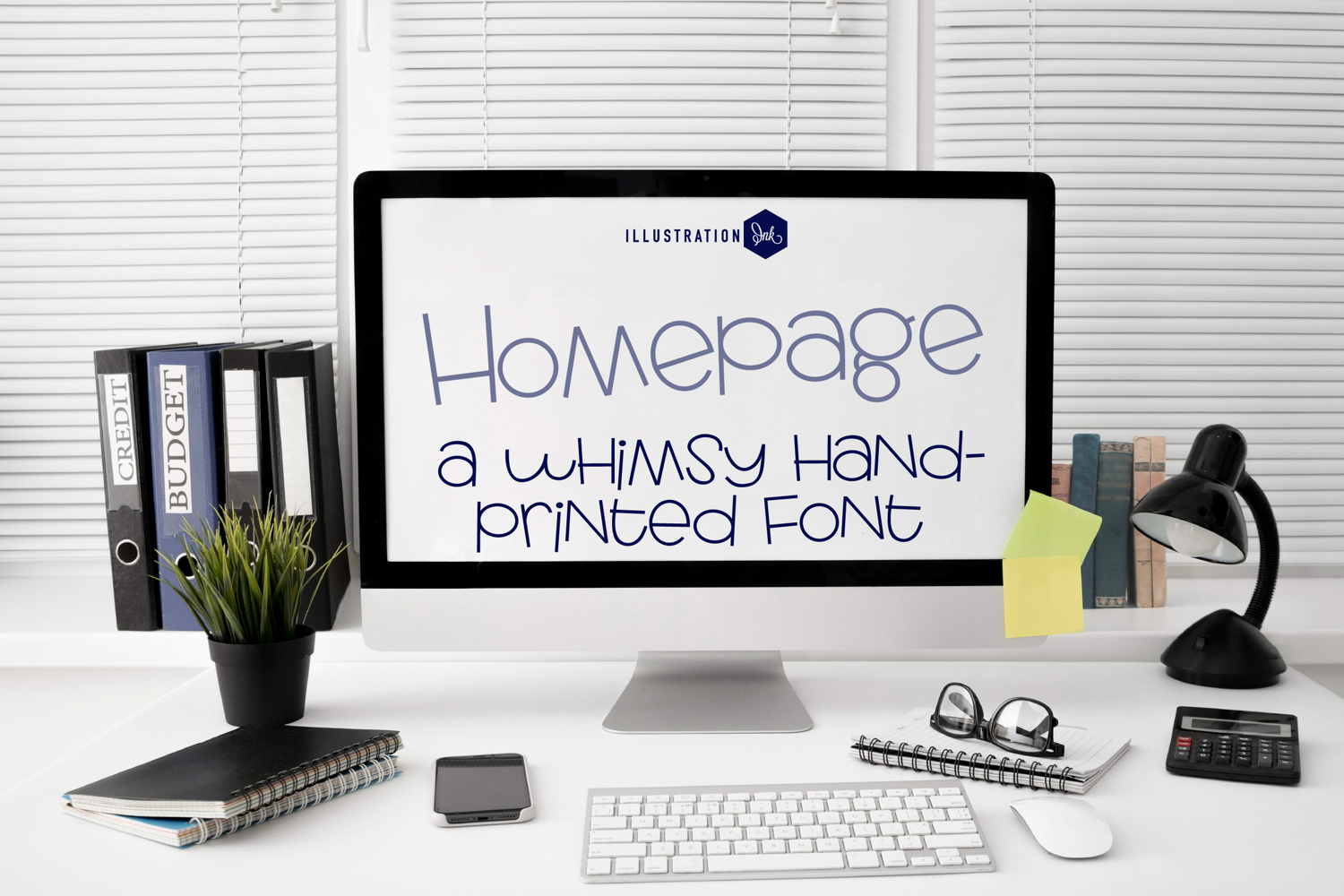
This hand-crafted font is a whimsical, print with no descenders.
• The letters are not perfectly uniform in size or shape.
• There may be slight variations in the spacing between letters and words.
• The font may have a "wiggly" or "squiggly" appearance.
• The font may be difficult to read at small sizes.